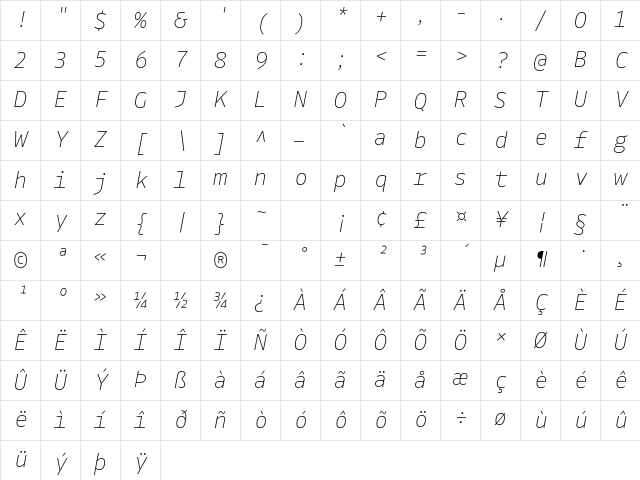
Drive Mono Thin Italic Free Font
Drive Mono Thin Italic
Foundry: Black Foundry
Designer: The Black Foundry Design Team
Drive Mono Thin Family
Drive Mono Thin Italic
Complete Drive Mono Thin Italic glyph index. Displaying only characters natively supported by Drive Mono Thin Italic font.
Design Context for Drive Mono Thin
Drive Mono Thin uses fixed-width spacing throughout, giving it the structured, systematic character associated with coding environments and technical documentation. The slanted form adds forward momentum and visual energy. Its slender proportions lend an understated elegance to any composition.